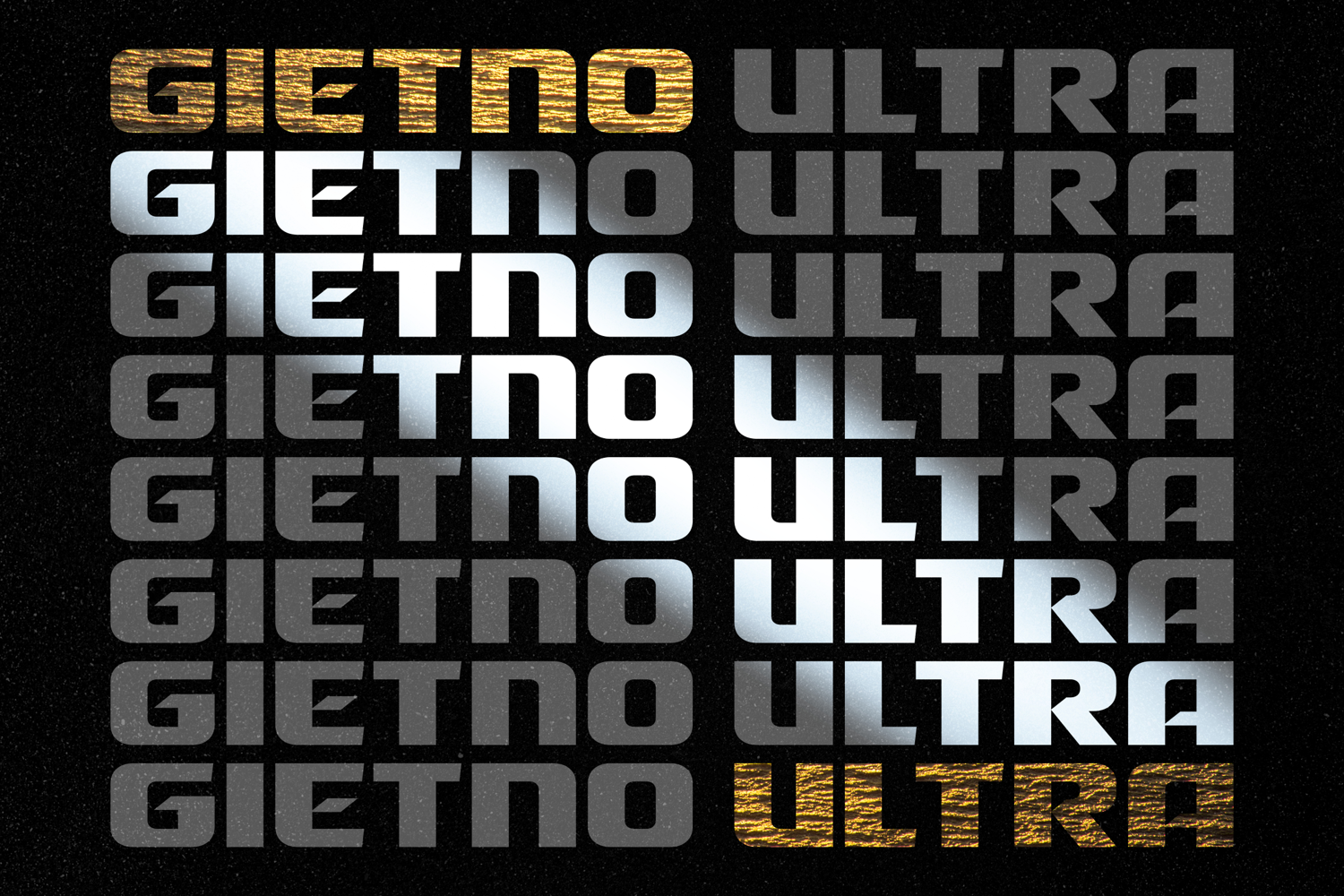
Gietno Ultra | Sport Font
Gietno Ultra
*Gietno Ultra, our new sport font release. Designed with wide and bold personality, gives it an "in your face!" feeling but still maintain its readability. Suits best for logo/branding, titles, jersey number, sport letter things, and any design that needs an instant impact at very first glance. This is an all-caps font, so you can combine upper and lowercase to get more letter combinations. Multilingual characters are available, in both OTF and TTF formats.